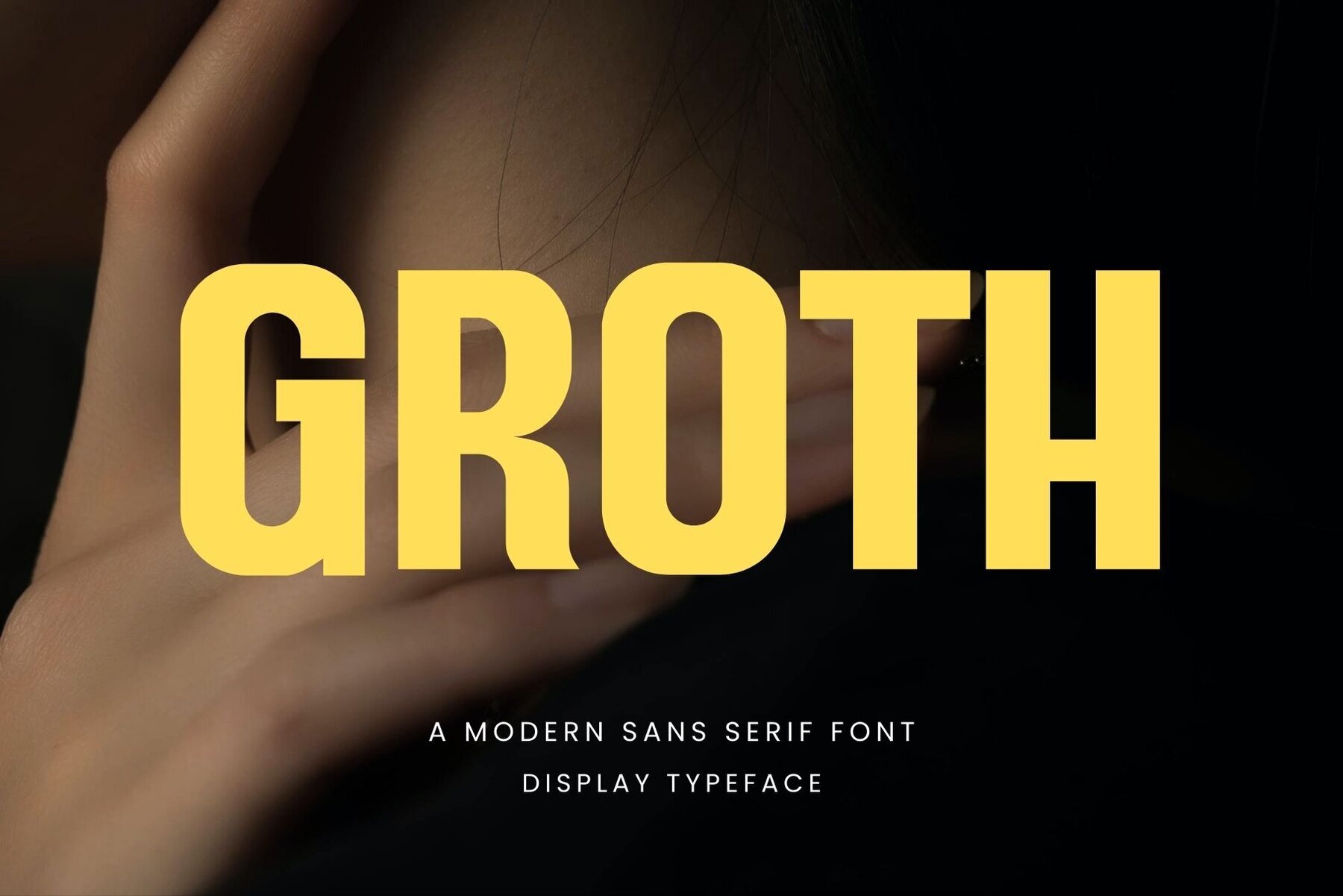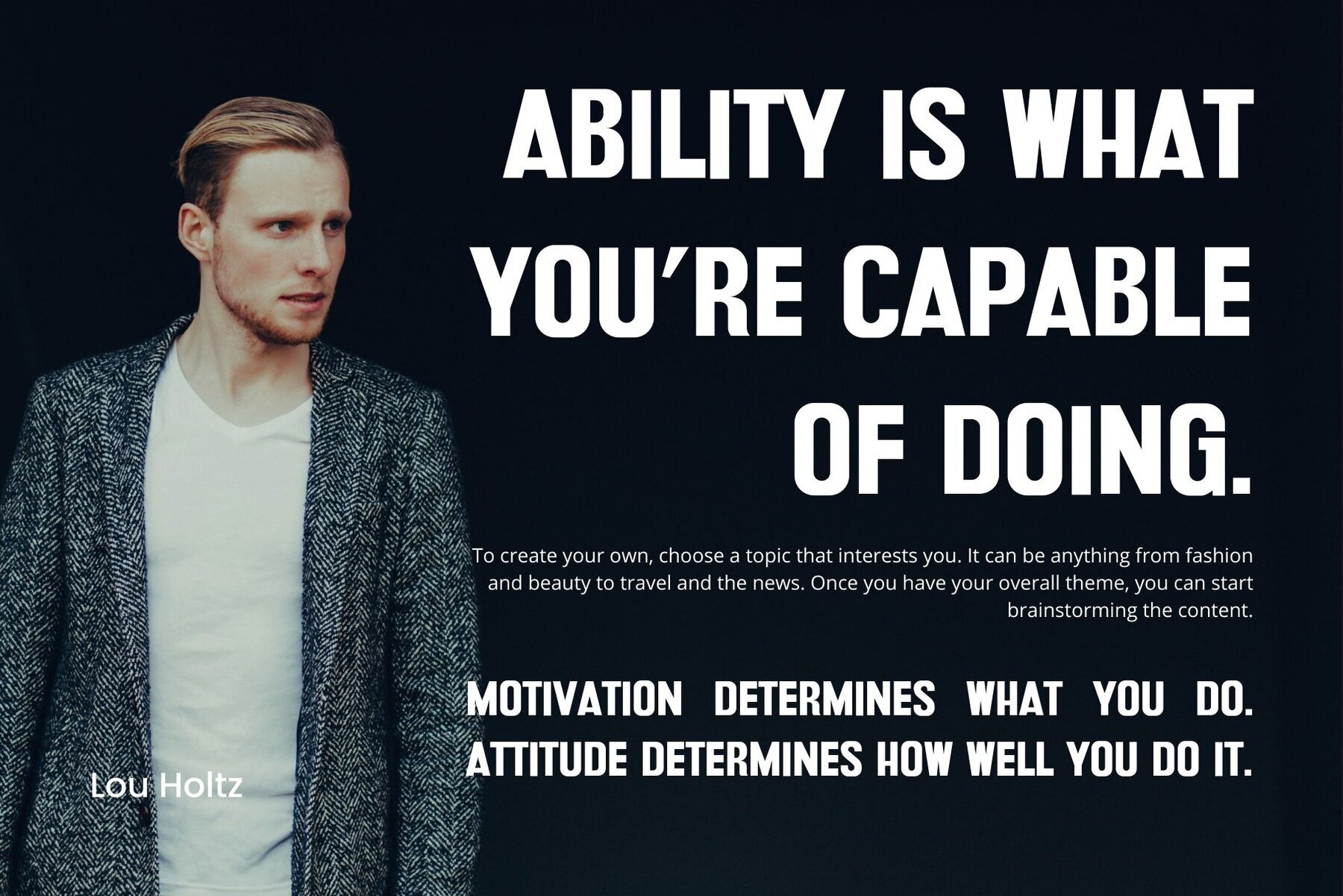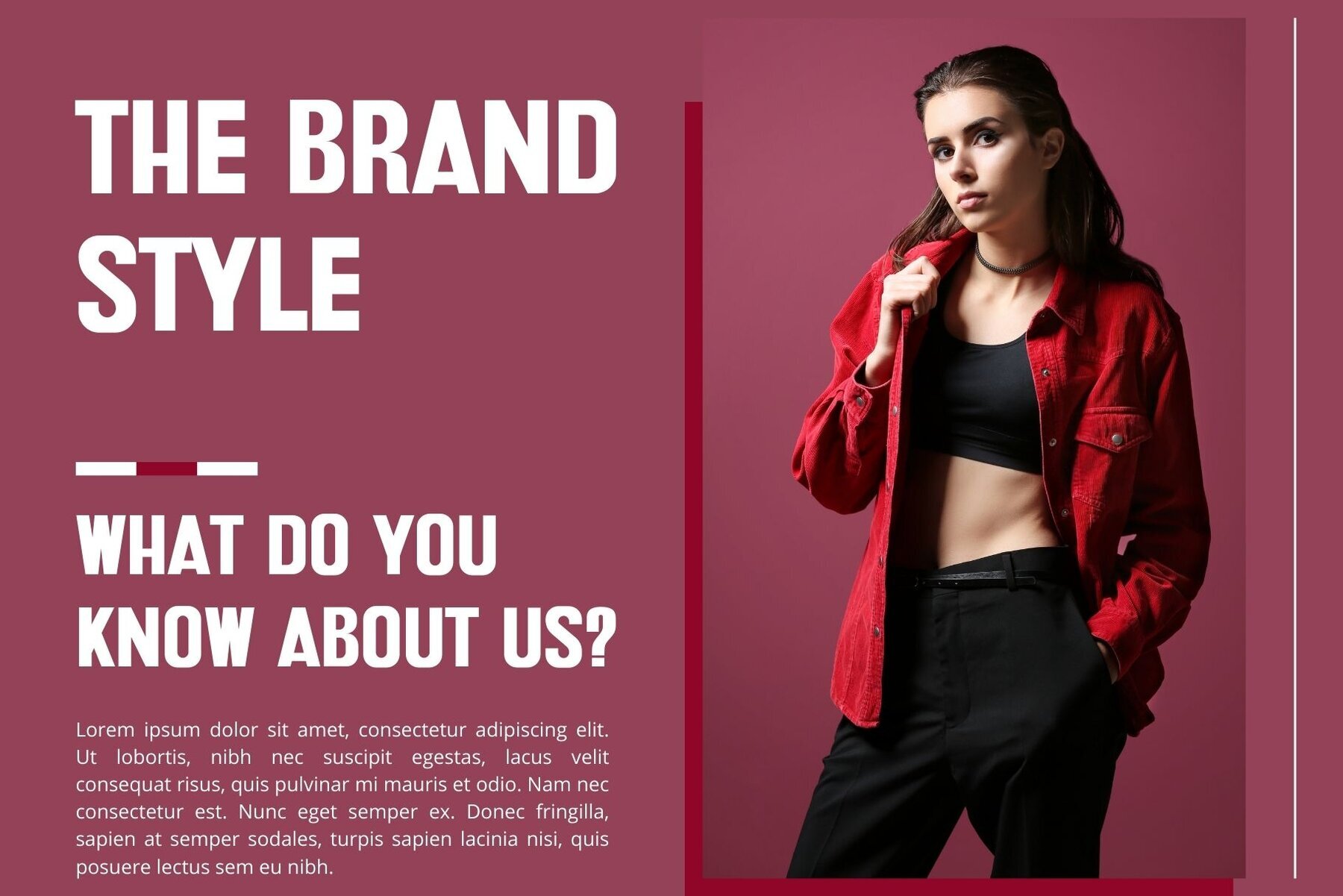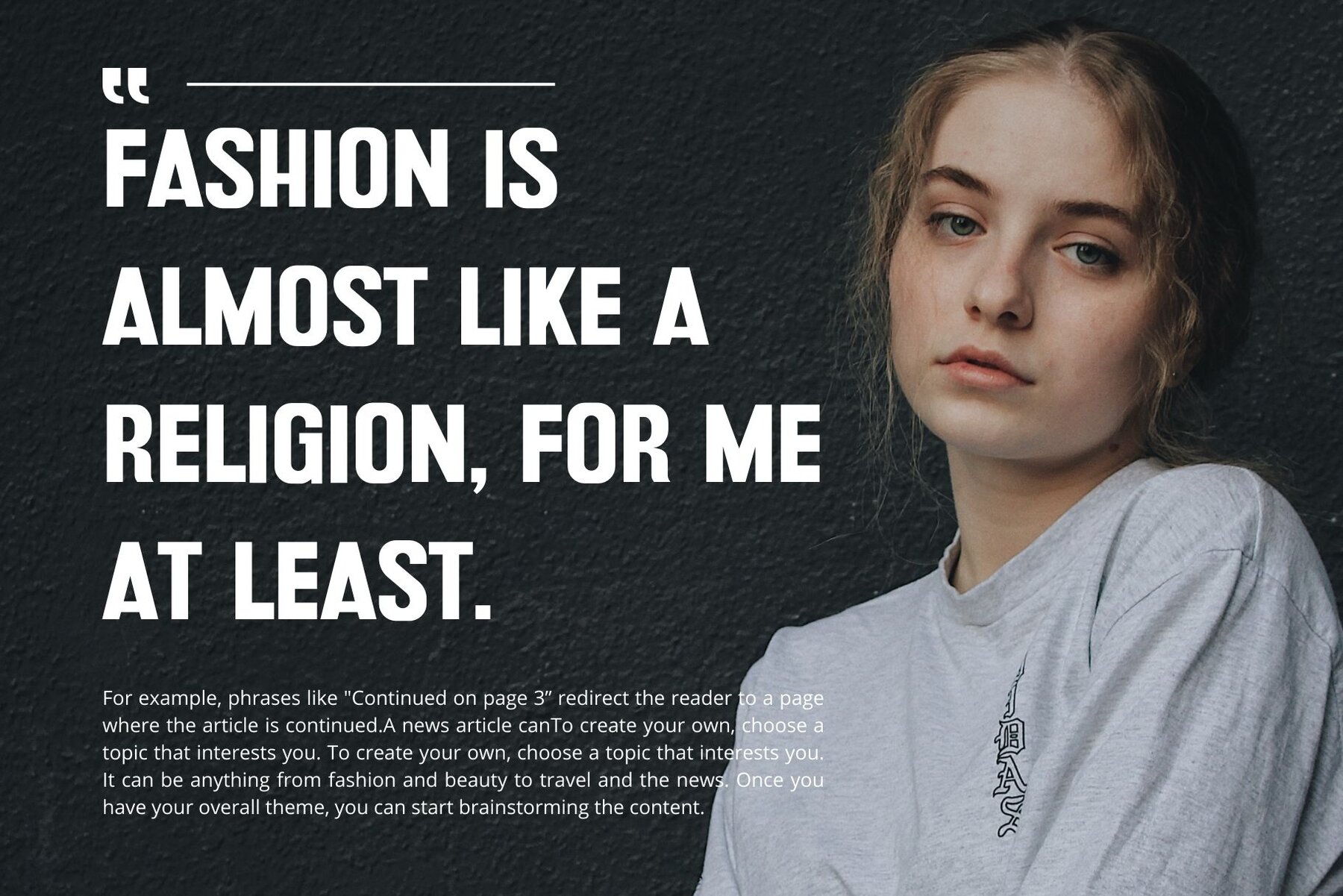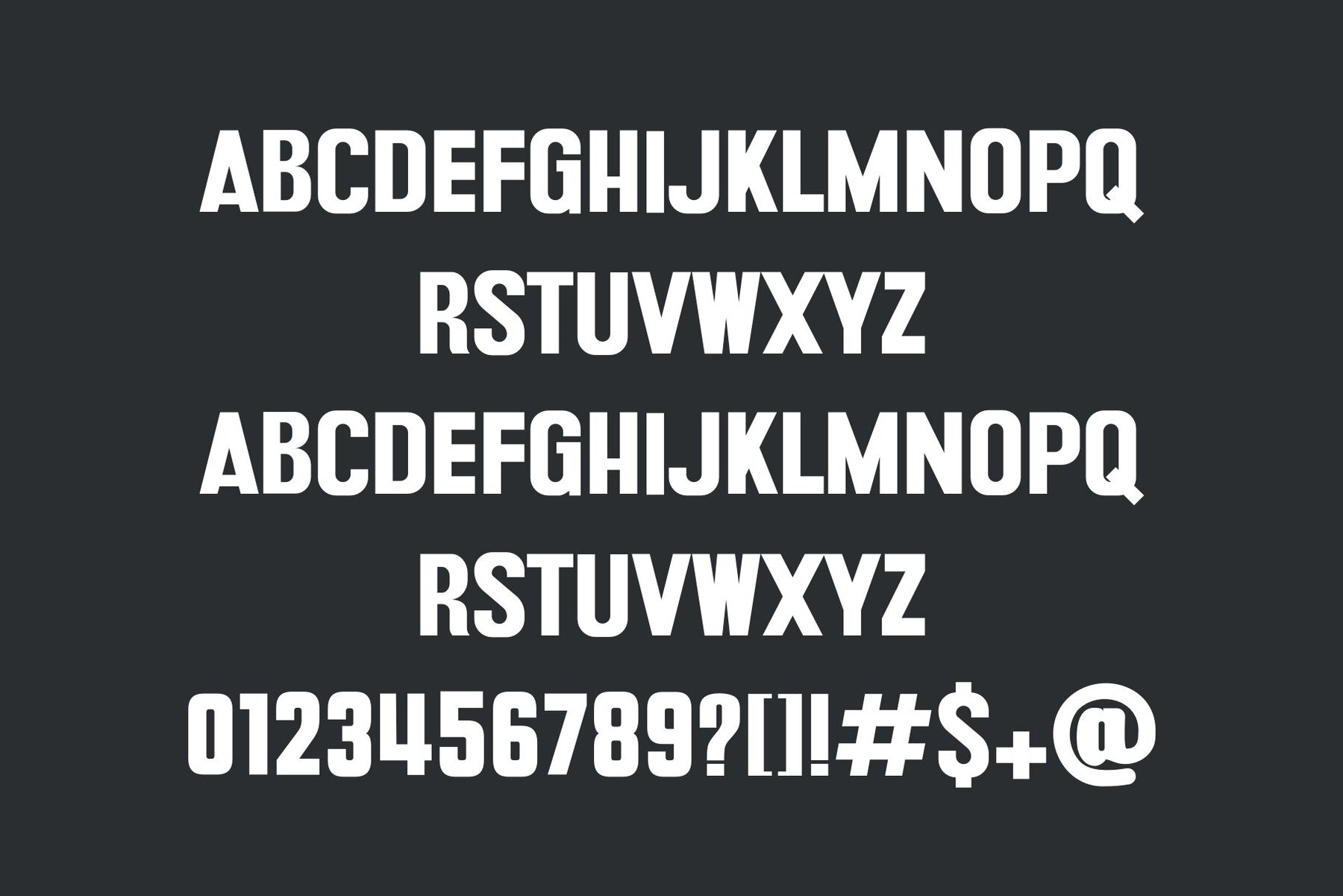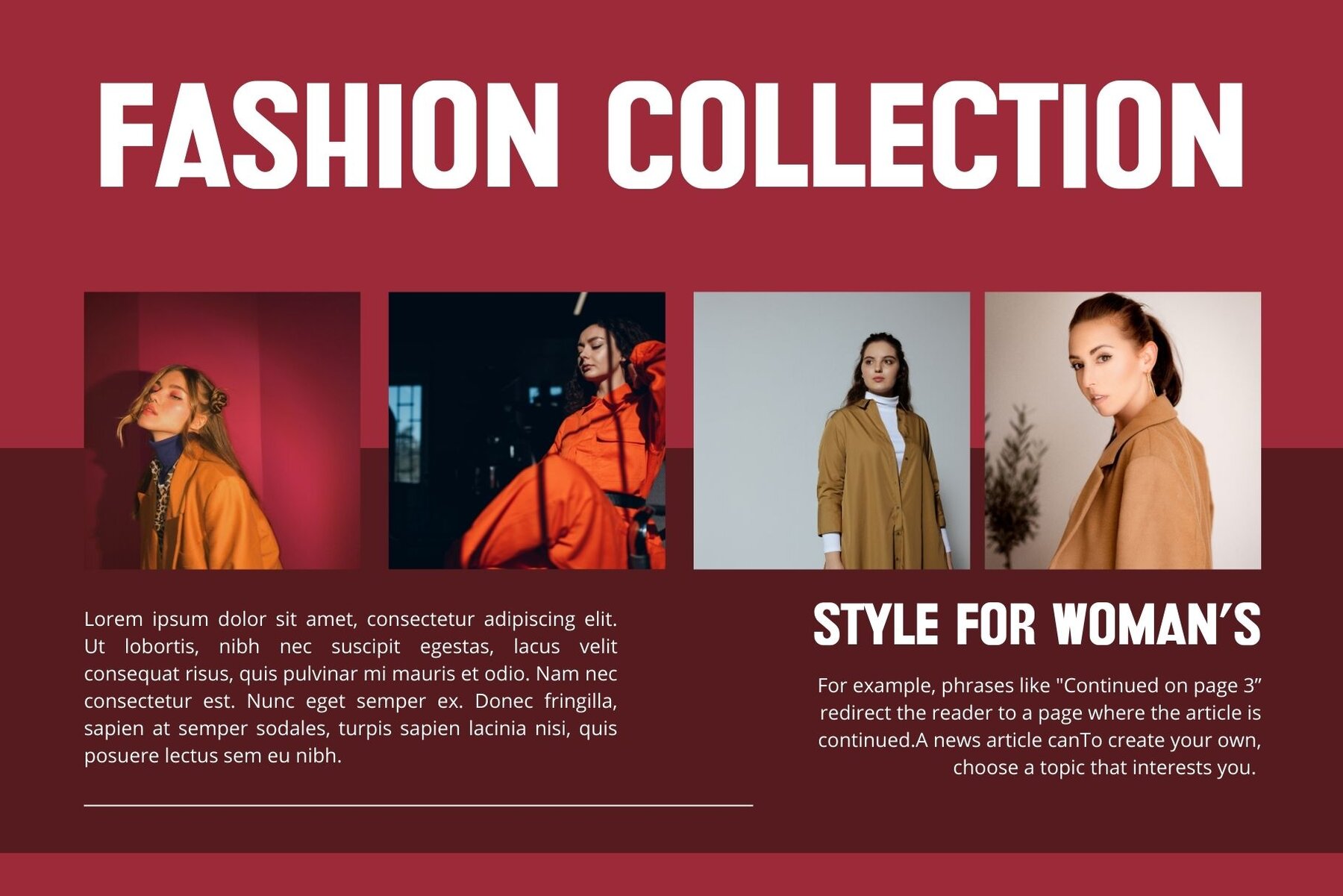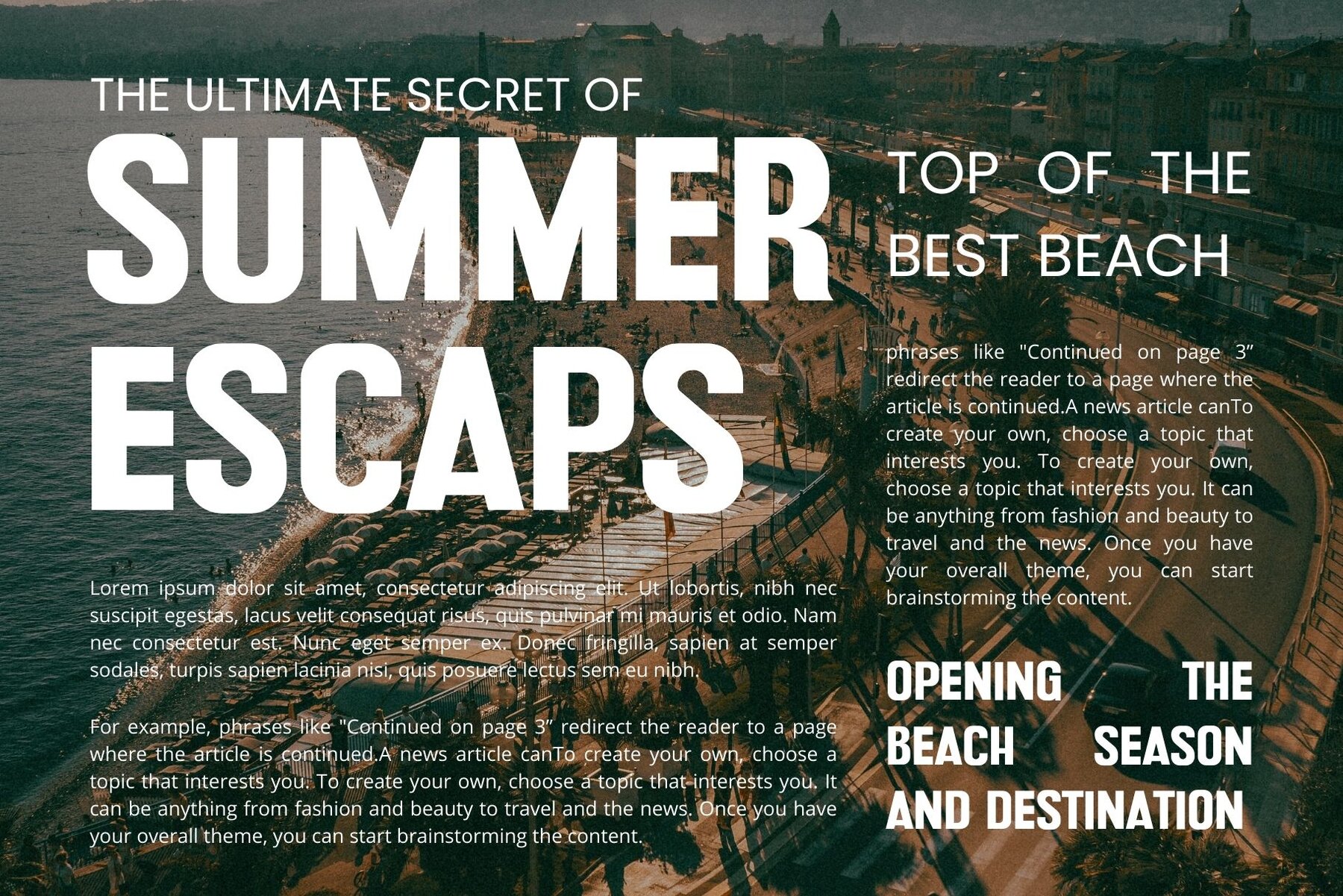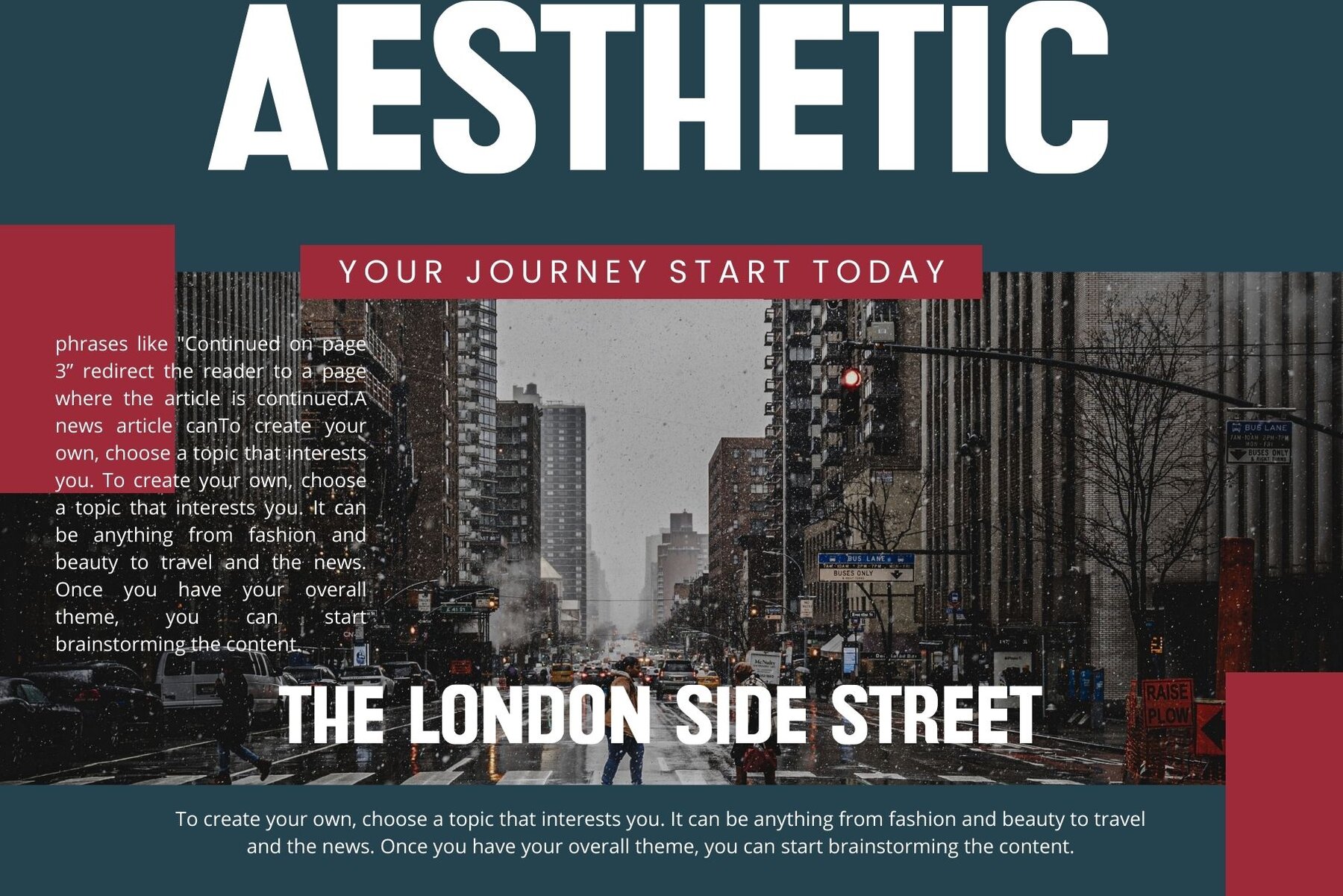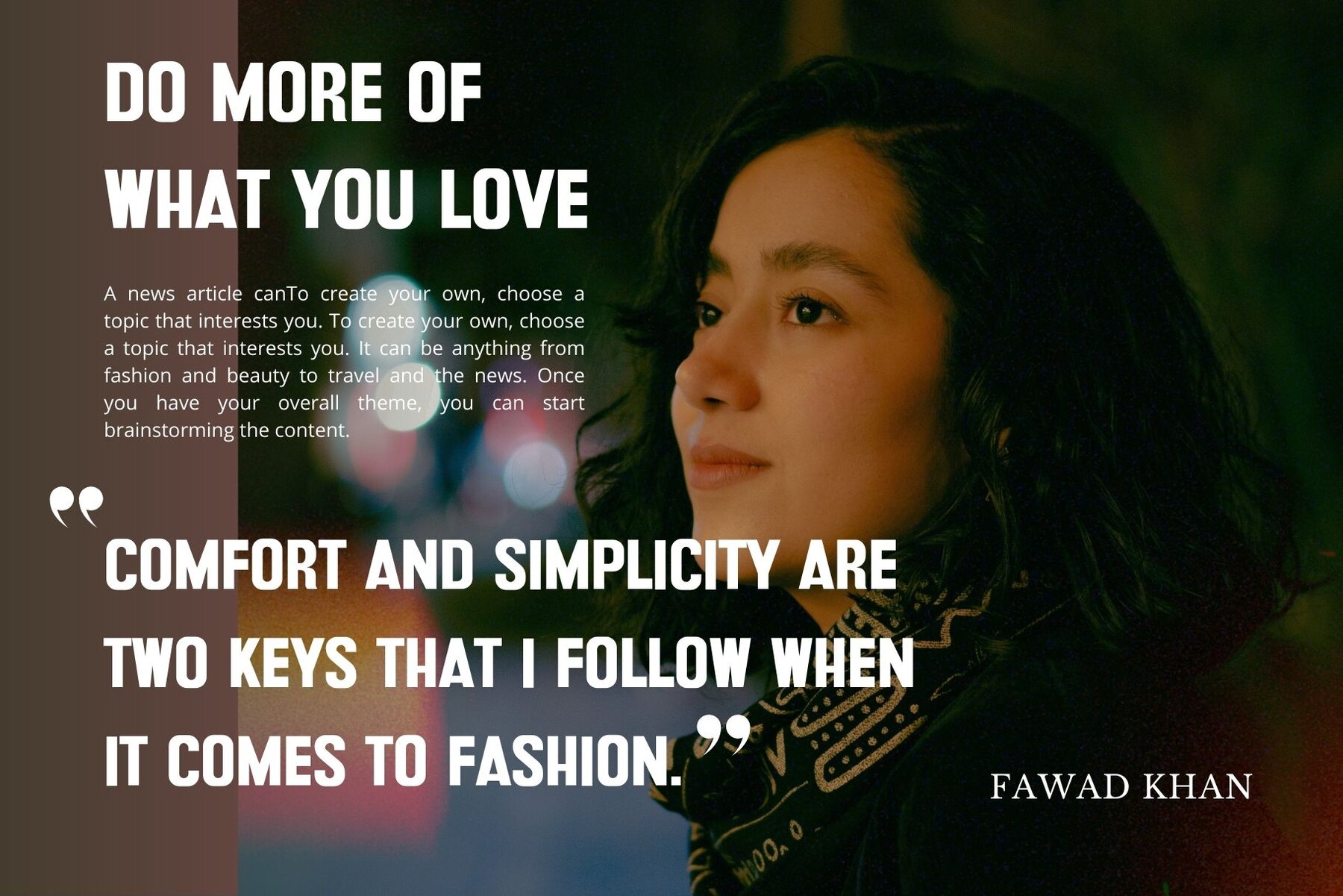
Groth Font
Groth Regular
Groth by Perfectype Studio embodies a rhythm of symmetry and balance, drawing from a blend of diverse inspirations. The font’s precisely adjusted proportions, along with its subtle contours and contrasts, provide an attractive aesthetic without sacrificing elegance and minimalism. Perfect for various graphic design projects, Groth suits brochures, videos, advertising, branding, logos, magazines, layout designs, posters, post templates, games, and more. For optimal use, we recommend Adobe Illustrator or Adobe Photoshop. If you have any questions, feel free to reach out for assistance.Groth: Symmetrical and Balanced Typeface for Versatile Designs